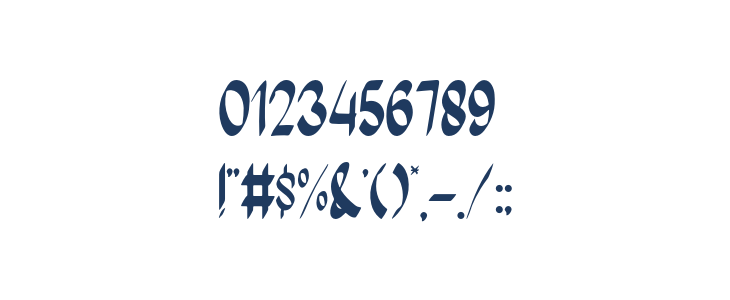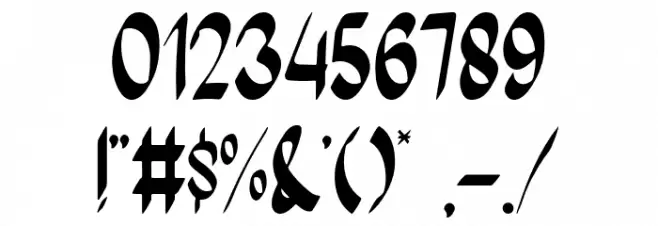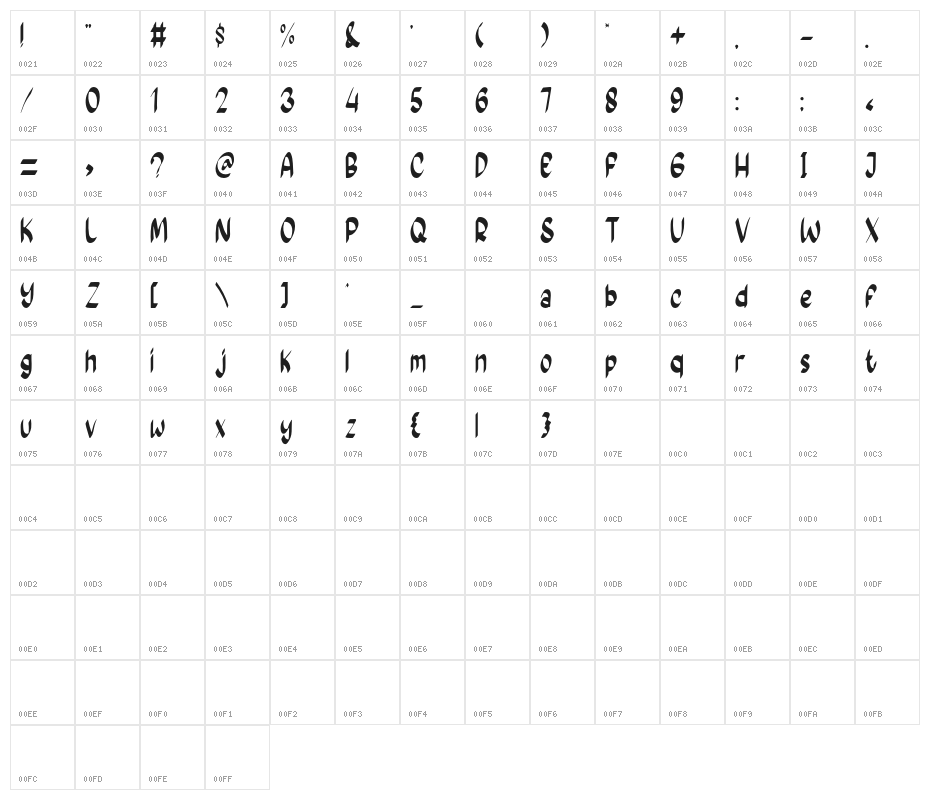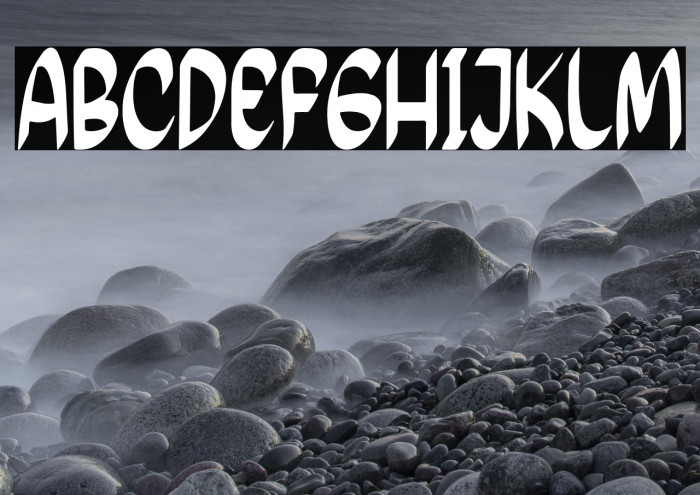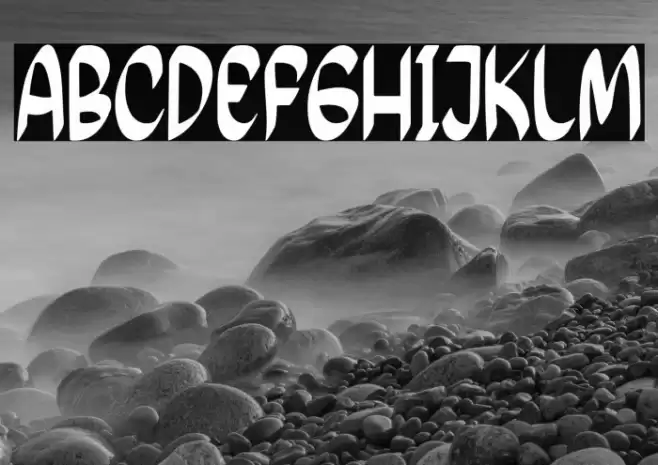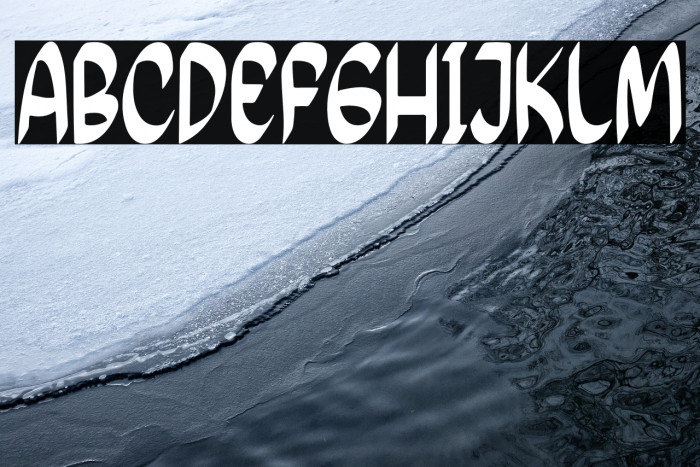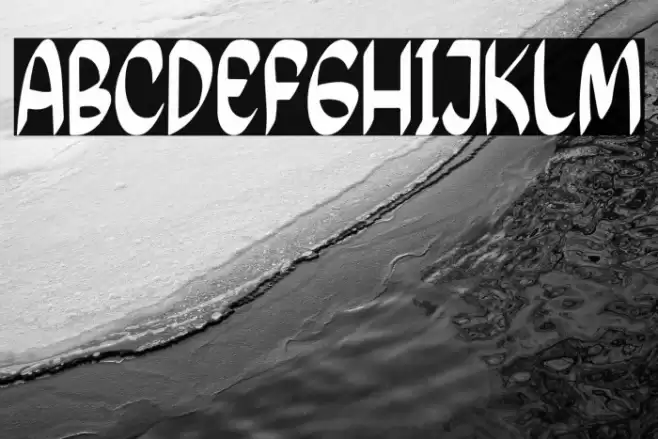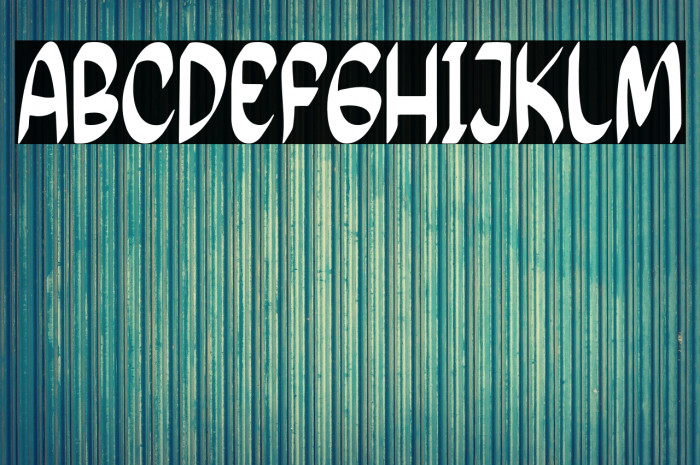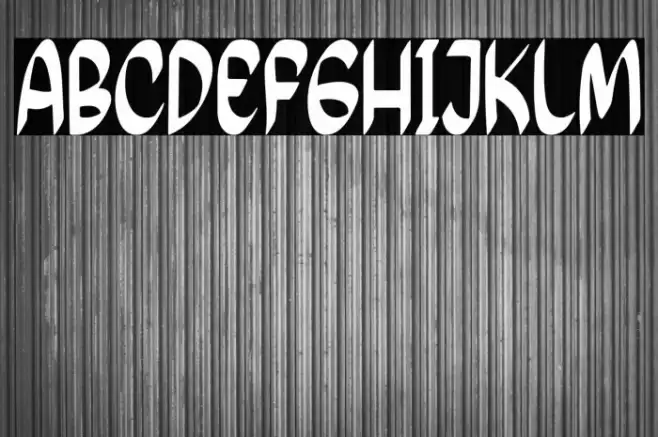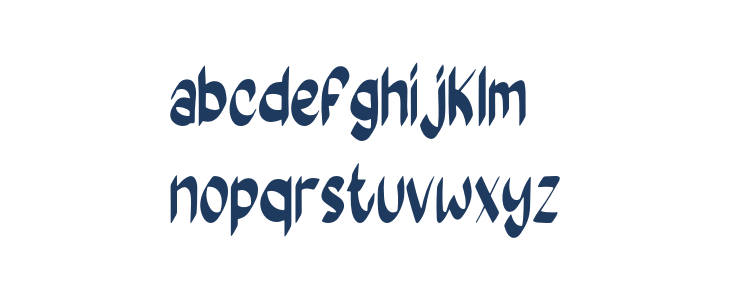
Feel Calm Font
Feel Calm Description
This font features a bold and dynamic style with a distinctive, artistic flair. The characters exhibit a playful, yet sophisticated design, with varying stroke widths that create a sense of movement and energy. The uppercase letters are particularly striking, with sharp angles and unique curves that give them a modern, edgy appearance. The lowercase letters maintain this aesthetic, offering a cohesive look across the alphabet. Numbers and special characters are crafted with the same attention to detail, ensuring versatility in various design contexts. The overall impression is one of creativity and expressiveness, making it suitable for projects that require a standout visual impact.
| Proposed Projects | Ideal for branding, posters, and creative projects that demand attention. |